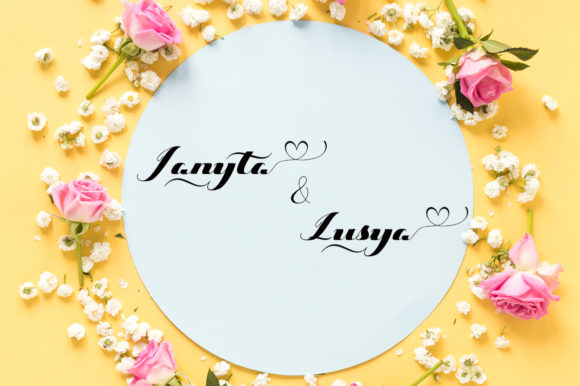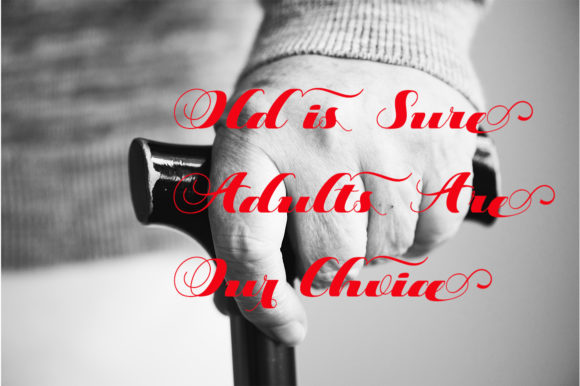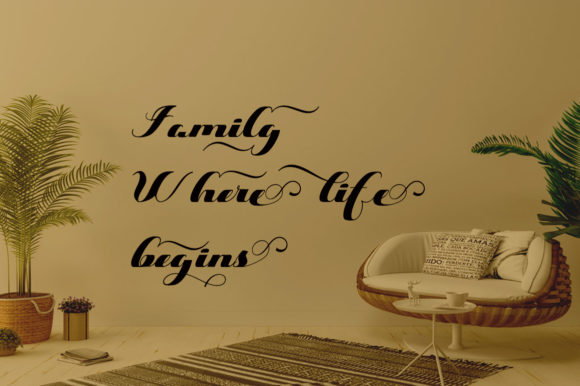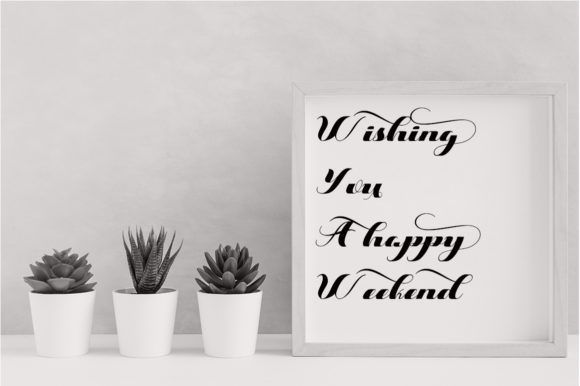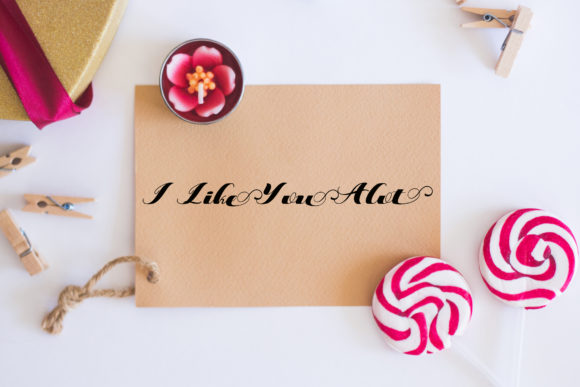
Marykate Font
About Marykate Font
The Marykate is a modern calligraphy font. It’s handwritten and includes modern and unique forms of calligraphy. Its natural writing style will give a real handwritten look to your designs.